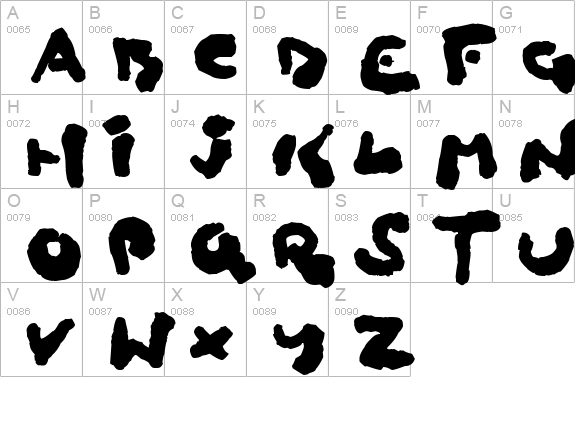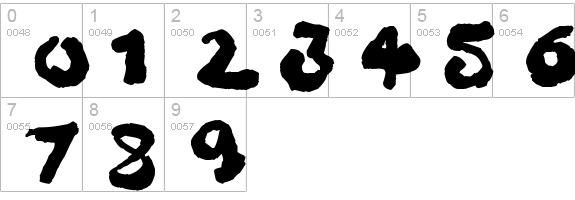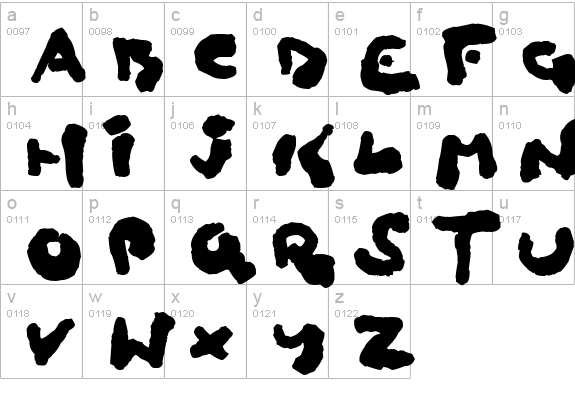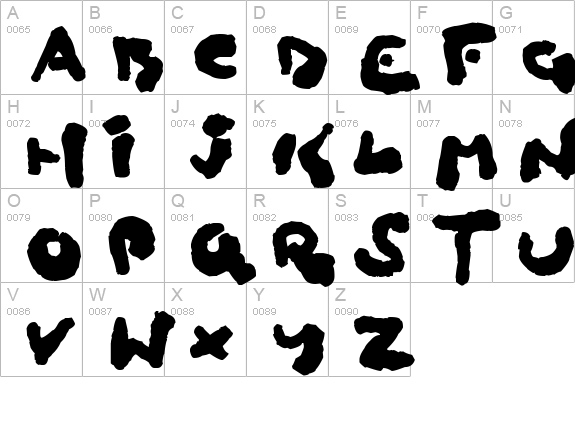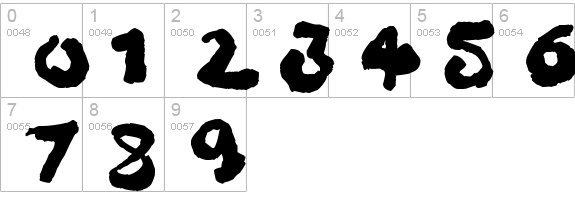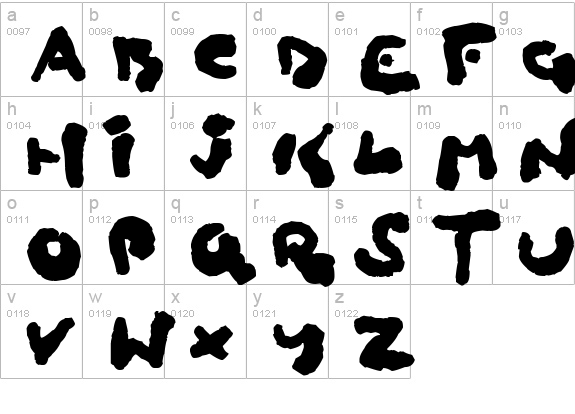
Childlike Blobs Font Details
Childlike Blobs is a free for personal use font in the Script category, designed by Darrell Flood. It has been downloaded 11 times and is available for Windows, Mac and Linux.
Childlike Blobs font is a whimsical and playful typeface that captures the essence of innocence and fun. With its rounded edges and charming irregular shapes, this font exudes a childlike quality that is perfect for adding a touch of creativity and joy to your design projects.
Whether you're creating invitations for a birthday party, designing a children's book cover, or just looking to inject some lightheartedness into your work, Childlike Blobs font is sure to bring a smile to your audience's face. Its quirky and endearing characters will add a unique flair to any project, making it stand out from the crowd.